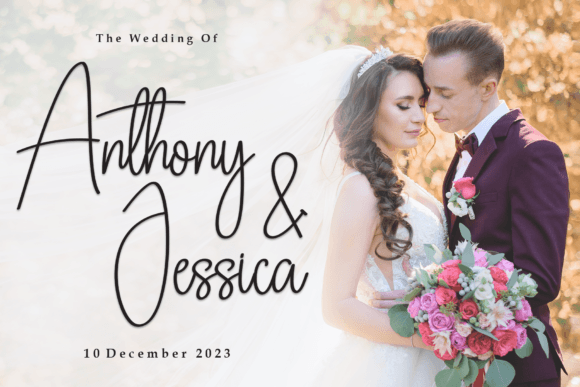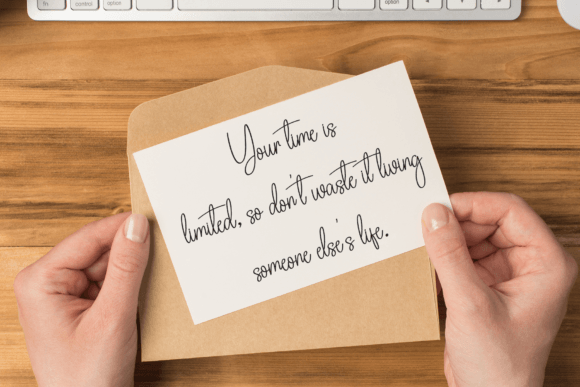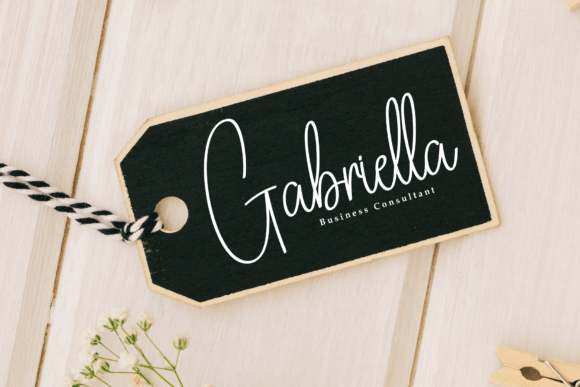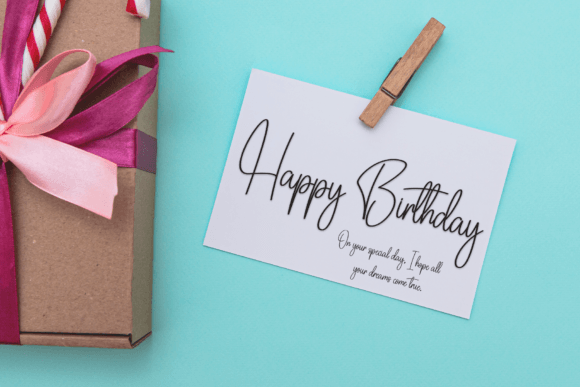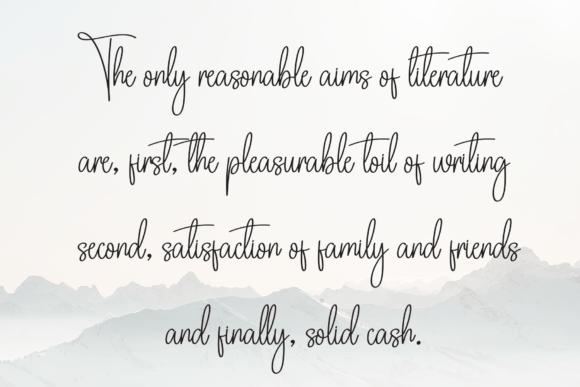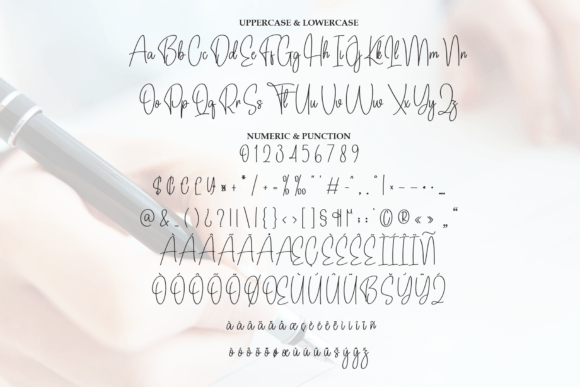
The Sweet and Friendly Bethany Signature Font: A Designer’s Delight
I’ll never forget the time I was working on a wedding invitation project, and my client asked me to add a touch of whimsy to the design. I scoured the internet for the perfect font, but nothing seemed quite right. That was until I stumbled upon Bethany Signature, a sweet and friendly handwritten display font that instantly captured the playful, romantic vibe I was going for.
Bethany Signature is a beautiful, handmade font that’s perfect for adding a personal touch to any design project. In this article, I’ll share my honest review of the font, provide a practical guide on how to use it, and explore some similar fonts you might love.
An Honest Review of Bethany Signature
• Sweet and friendly vibe: Bethany Signature has a warm, approachable feel that’s perfect for creating designs that feel personal and inviting.
• Highly legible: Despite its playful nature, the font is surprisingly easy to read, making it perfect for use in body text or headings.
• 💕 Versatile: Bethany Signature is suitable for a wide range of design projects, from wedding invitations and cards to social media graphics and more.
While Bethany Signature is an amazing font, there are a few things to keep in mind:
• ⚠️ Limited use in very formal designs: While the font is highly legible, its playful nature may not be suitable for very formal designs, such as corporate branding or government documents.
• 🤔 Some glyphs may require adjustment: Depending on the design, some glyphs (such as the ampersand or exclamation mark) may require adjustment to fit seamlessly with the rest of the text.
Bethany Signature is an OpenType font, which means it comes with a range of features and glyphs to help you customize your design. Here are a few tips for getting the most out of these features:
• Using stylistic alternates: Some fonts, including Bethany Signature, come with stylistic alternates that allow you to swap out certain characters for alternative versions. Experiment with these to add extra flair to your design.
The Backstory Behind Bethany Signature
Bethany Signature was designed by a talented font creator who wanted to craft a font that would bring a touch of warmth and personality to designs. Inspired by traditional handwriting and calligraphy, the font was carefully crafted to be both beautiful and highly legible.
Q: What type of designs is Bethany Signature best suited for?
A: Bethany Signature is perfect for designs that require a personal touch, such as wedding invitations, cards, and social media graphics.
Q: Is Bethany Signature a script font?
A: While Bethany Signature has some script-like qualities, it’s technically a handwritten display font. It’s perfect for adding a touch of elegance and sophistication to your designs.